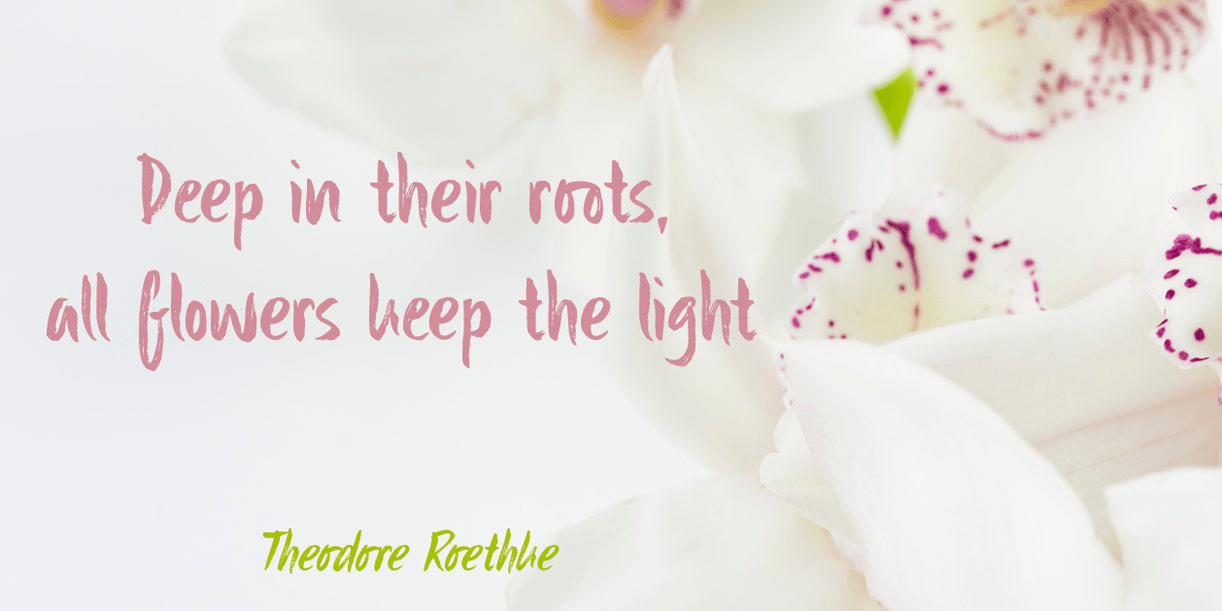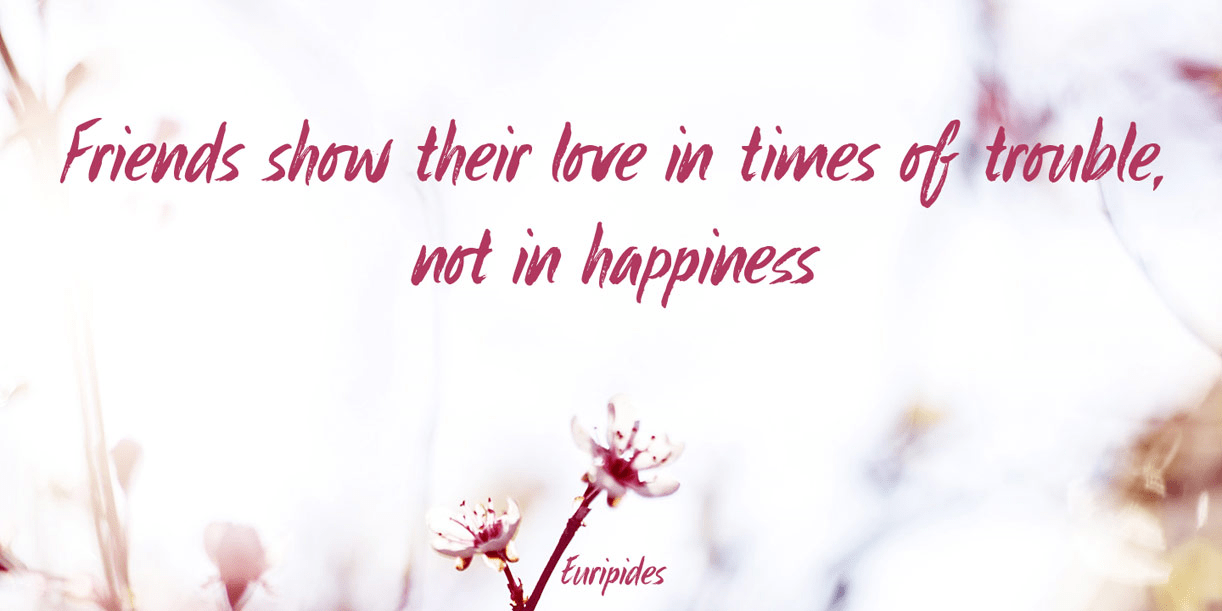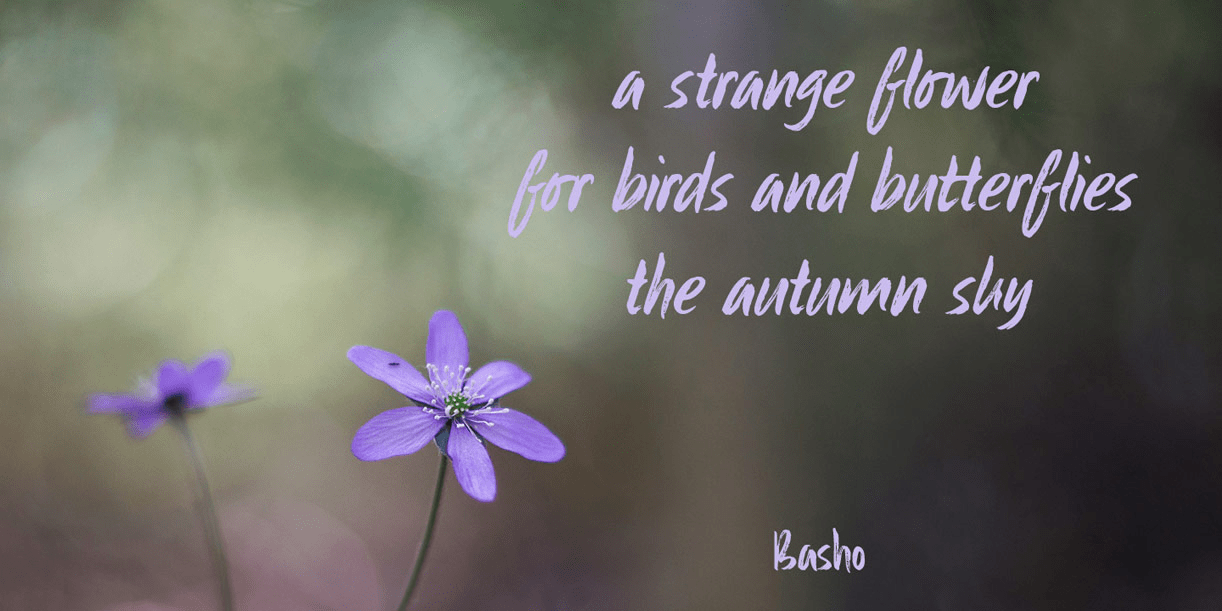
About Sibylle
Sibylle is a handmade script font. I used a medium sized Japanese brush pen and coarse paper to create the ?eroded? effect. Sibylle comes with double letter ligatures and stylistic alternates for the o (plus all accented o\’s).